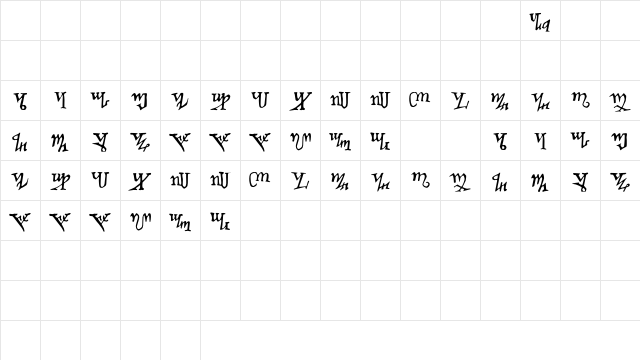
Complete Witch_of_Thebes Medium glyph index. Displaying only characters natively supported by Witch_of_Thebes Medium font.
Witch_of_Thebes is a composed and adaptable typeface that performs quietly and consistently across a wide range of design contexts.